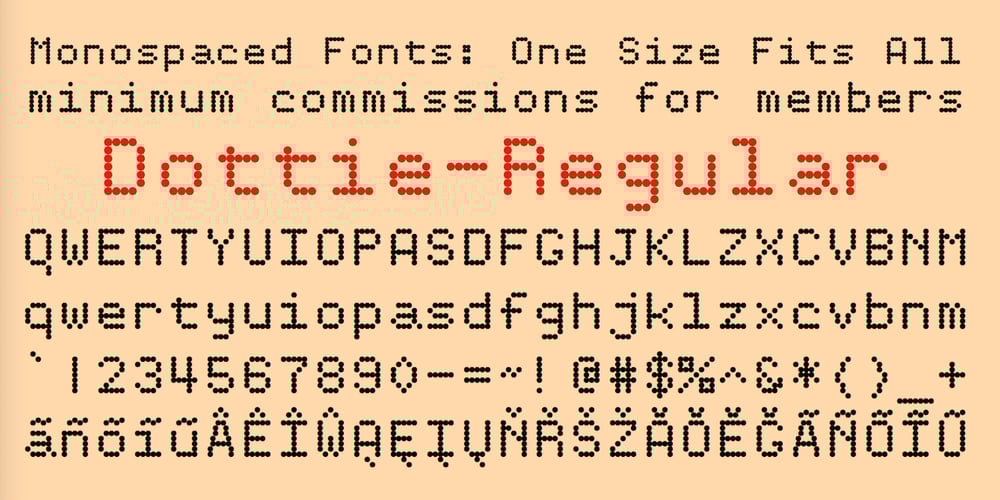
Dottie Font Family was designed by Robert Schenk and published by Ingrimayne Type. Dottie contains 4 styles and family package options. Dottie is based on a matrix of dots. It was inspired by the output of old, cheap, dot-matrix printers. In addition to Dottie-Regular with round dots, the family group includes DottieDiamond with diamond dots, DottieSquareTwo with square dots that do not overlap, and DottieSquare with square dots that overlap to create horizontal and vertical bars.